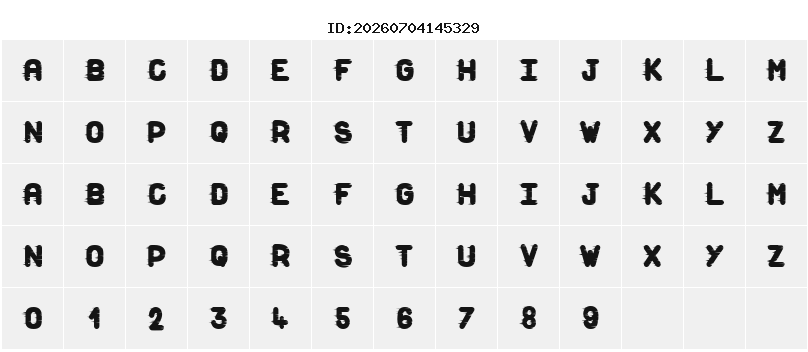
Dust Scratches light Preview
• Font Name: Dust Scratches light
• Full Font Name: Dust Scratches light
• Designer: dcoxy Medina Gregory
• Manufacturer: dcoxy Medina Gregory
About Dust Scratches light.ttf
Dust Scratches light.ttf is a modern, elegant sans-serif font designed for ultimate readability and visual harmony. Perfect for branding, headlines, web design, and print materials.